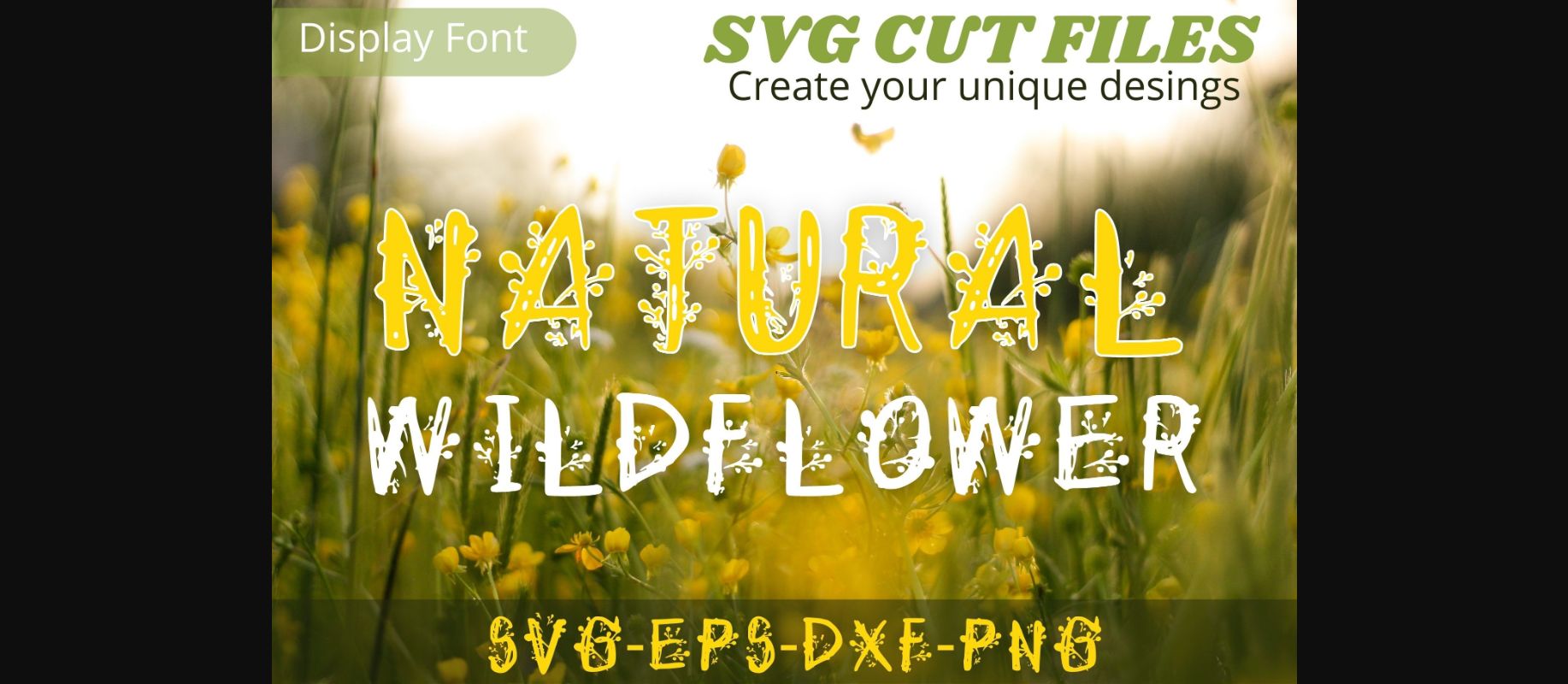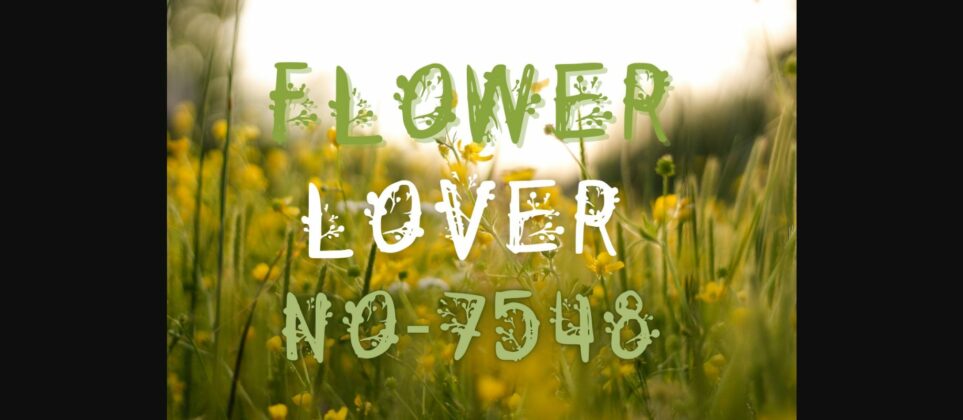
About Natural Wildflower Font
Natural Wildflower is a cool, useful and unique decorative font. You can use it for various projects, such as blog posts, logos, branding, ads, invitations, greeting cards, planners, photo albums, decorations, and much more. Add it to any of your designs, and enjoy the results!